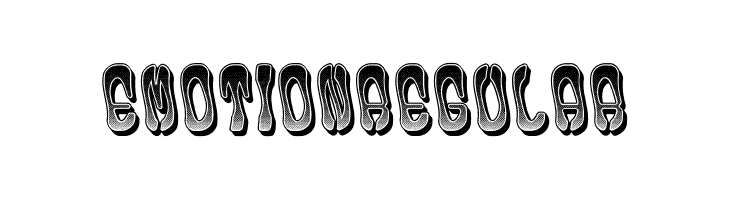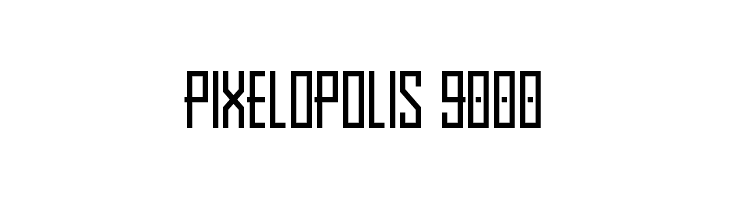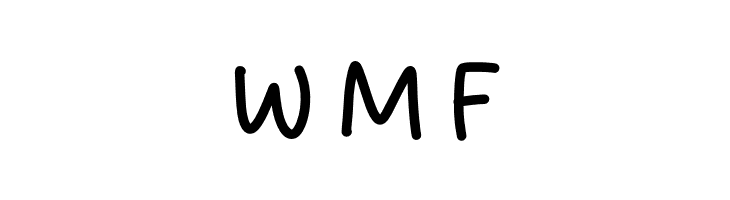
( Darrell Flood )
A futuristic, geometric font with blocky, angular letterforms.
( weknow - Wino S Kadir - www.creativefabrica.com/designer/weknow/ )
A modern, elegant script font with a slight slant and fluid, connected characters.
A bold, playful handwritten font with rounded, slightly irregular letterforms.
A geometric, octagonal font with a bold, futuristic style.
A bold, decorative serif font with high contrast and ornate detailing.
A whimsical and playful script font with decorative loops and swirls.
( London's Letters - www.londonsletters.com/ )
A playful, cartoon-style font with letters embedded in bear illustrations.
( Fonts by Ef Studio )
A bold, playful, and decorative font with a whimsical, retro style.
( Fonts by InspiraType )
Casual handwritten script font.
A playful, handwritten font with bold, rounded strokes and a casual vibe.